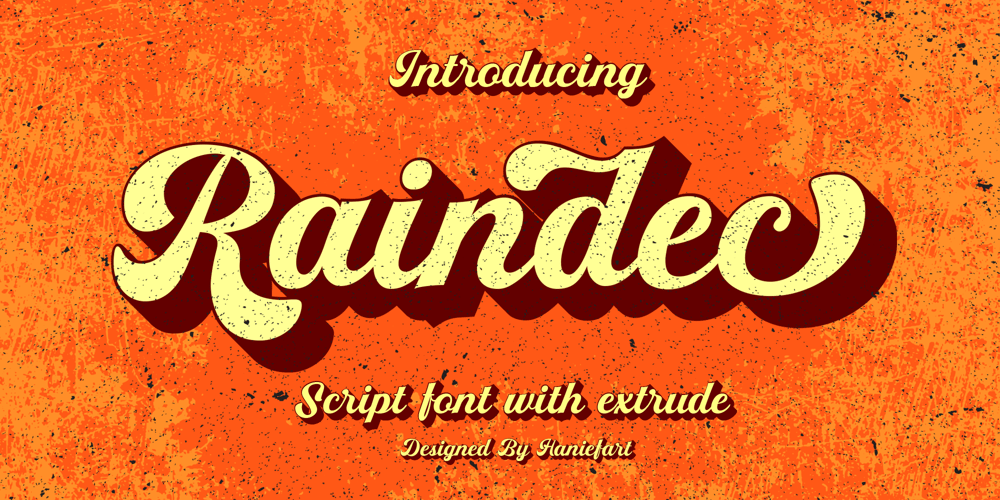
Raindec Font Family was designed by Hanif Maulazi and published by Haniefart. Raindec contains 2 styles and family package options. Raindec is a handcrafted script typeface, a font inspired by sign paintings, branding, t-shirts, flyers, and more, with a variety of interesting characters. You can really make Raindec feel personalized for your client’s projects. Raindec script fonts can be used for magazines, clothing designs, logos, titles, flyers and more.